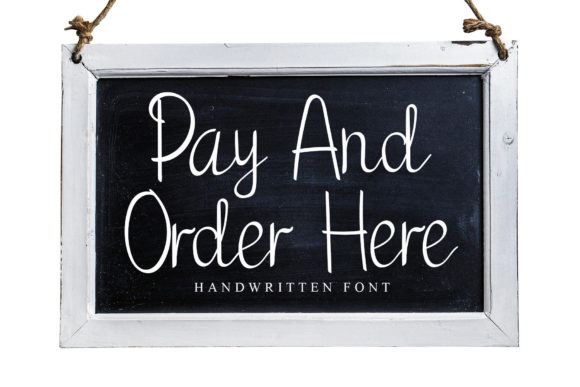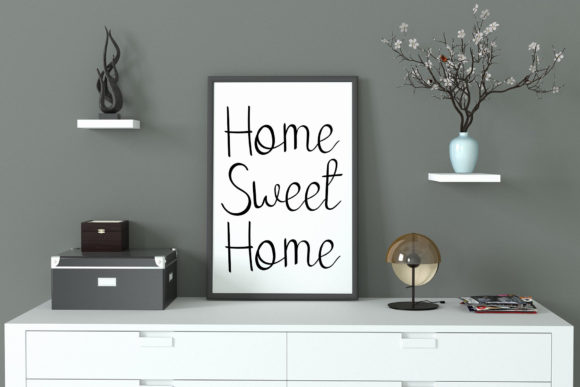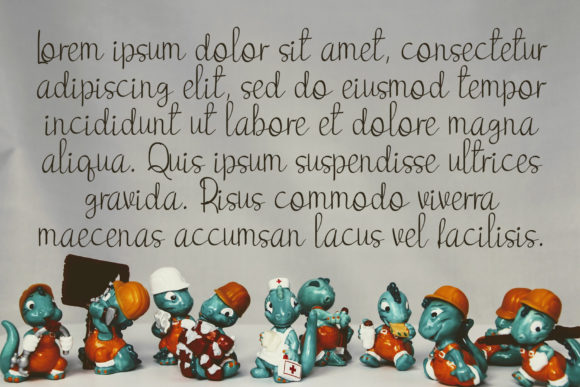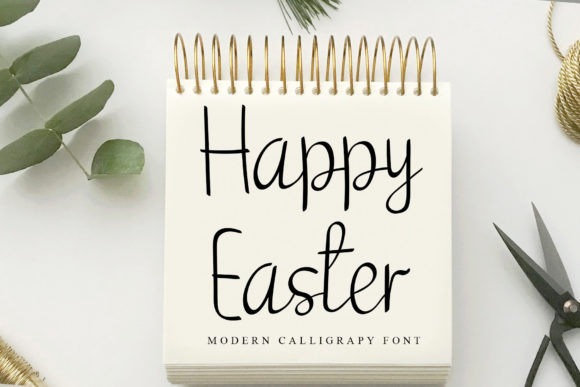
The Elegant Charm of Buttermilk Font: A Designer’s Delight
I still remember the time I was working on a wedding invitation project, and my client asked for a font that would make their special day feel truly unique and elegant. I scoured the internet, tried countless fonts, but nothing seemed to fit the bill. That was until I stumbled upon Buttermilk Font. ✨ It was love at first sight! The natural, hand-made touch of this font instantly captured the essence of what my client was looking for. In this article, I’ll share my experience with Buttermilk Font, its features, and how to make the most of it in your designs.
An Honest Review of Buttermilk Font
- ✨ Unique and elegant handwritten style
- ✅ Perfect for wedding invitations, greeting cards, billboards, logos, and business cards
- ✅ Features a varied baseline for a natural, hand-made touch
While Buttermilk Font is a stunning addition to any design, there are a few things to keep in mind: 🤔
- ⚠️ Some users may find the font’s varied baseline can be challenging to work with in certain design software
- ⚠️ The font’s elegance may not be suitable for very bold or playful designs
The Story Behind Buttermilk Font
The story behind Buttermilk Font is one of passion and creativity. While the actual origins of the font are unclear, it’s believed to have been designed by a team of typographers who wanted to create a unique, elegant font that would capture the essence of handwritten writing. Their goal was to create a font that would feel natural, yet sophisticated, and we think they succeeded! 🎉